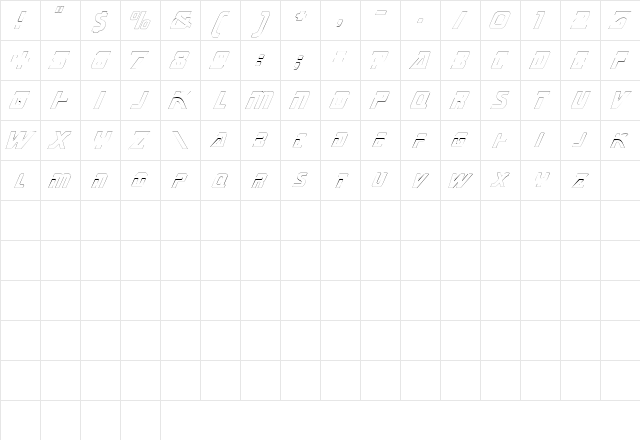
MarinerOutline Regular
Design Context for MarinerOutline Typeface
MarinerOutline brings ornamental detail and strong personality to headlines and identities, where visual impact matters more than quiet functionality.
Font Pairing: Pair with a clean neutral sans-serif for body copy to let MarinerOutline's character lead without overwhelming the composition.
Pro Tip: Use MarinerOutline exclusively at display sizes — it was designed to be seen, not read at length. Let a neutral companion handle body copy.